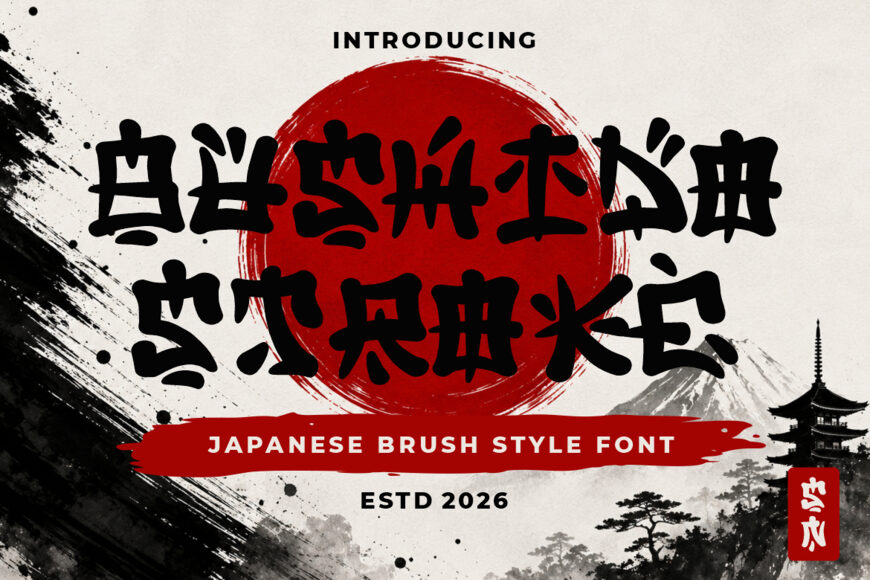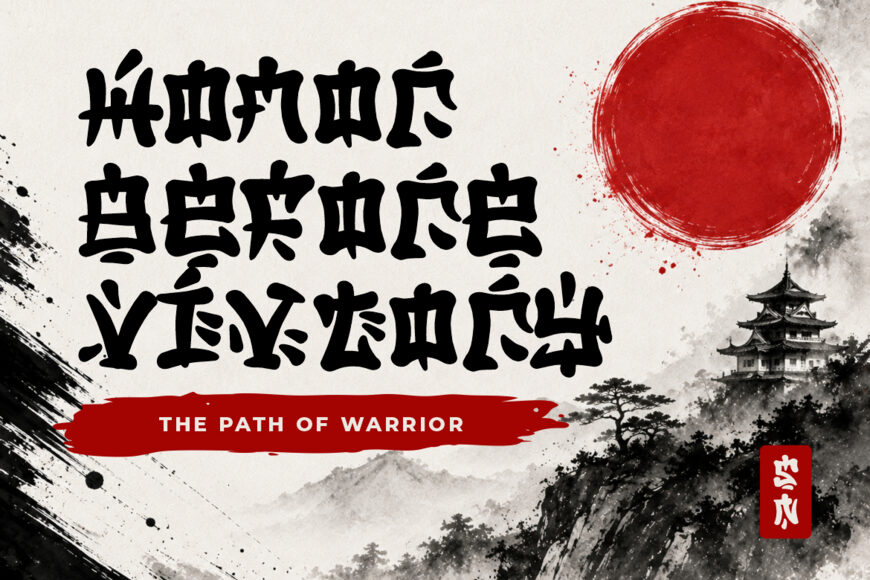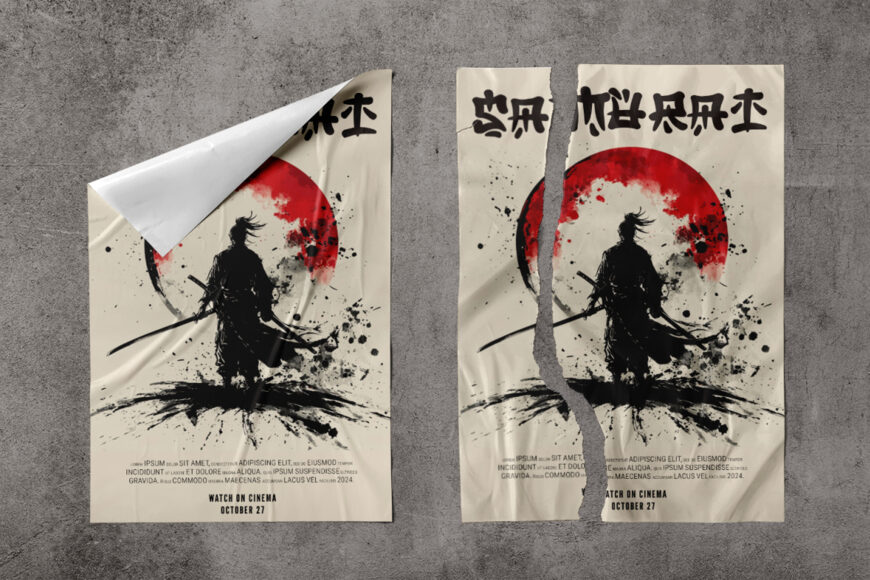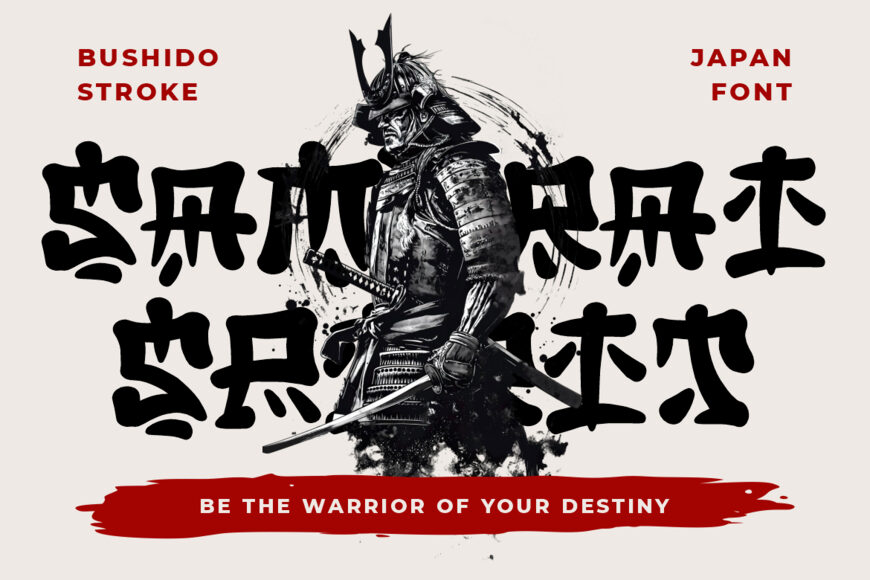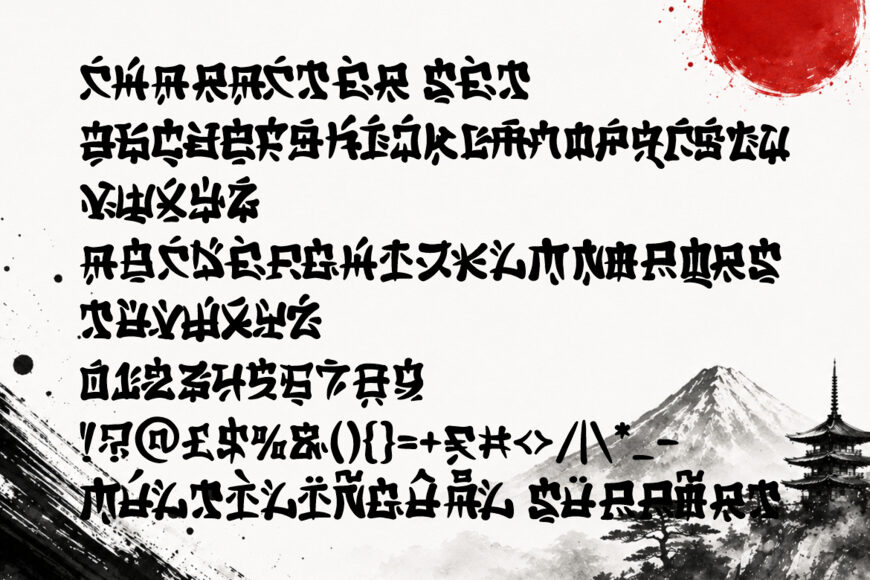
Bushido Stroke is a Japanese brush display font that captures the spirit of Japan through expressive, handcrafted lettering. Its bold strokes, compact shapes, rough edges, and organic details create an authentic traditional feel. Each character conveys movement, energy, and heritage while staying legible at large sizes.